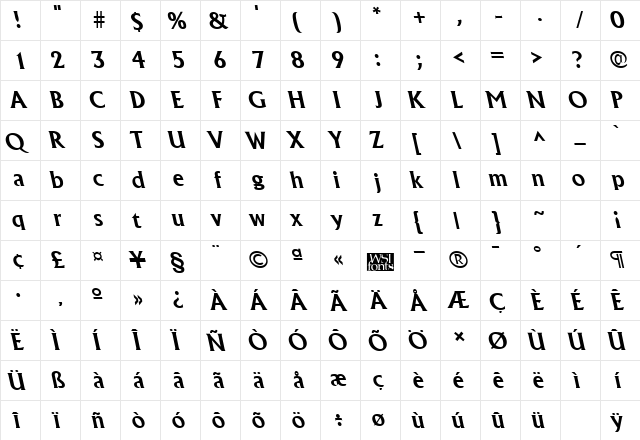
AlbertaBackslant Bold
Design Context for AlbertaBackslant Typeface
AlbertaBackslant offers clean, dependable letterforms without strong stylistic allegiance, making it a practical choice for designers who need flexibility. Its bold stroke weight gives it real presence on the page.